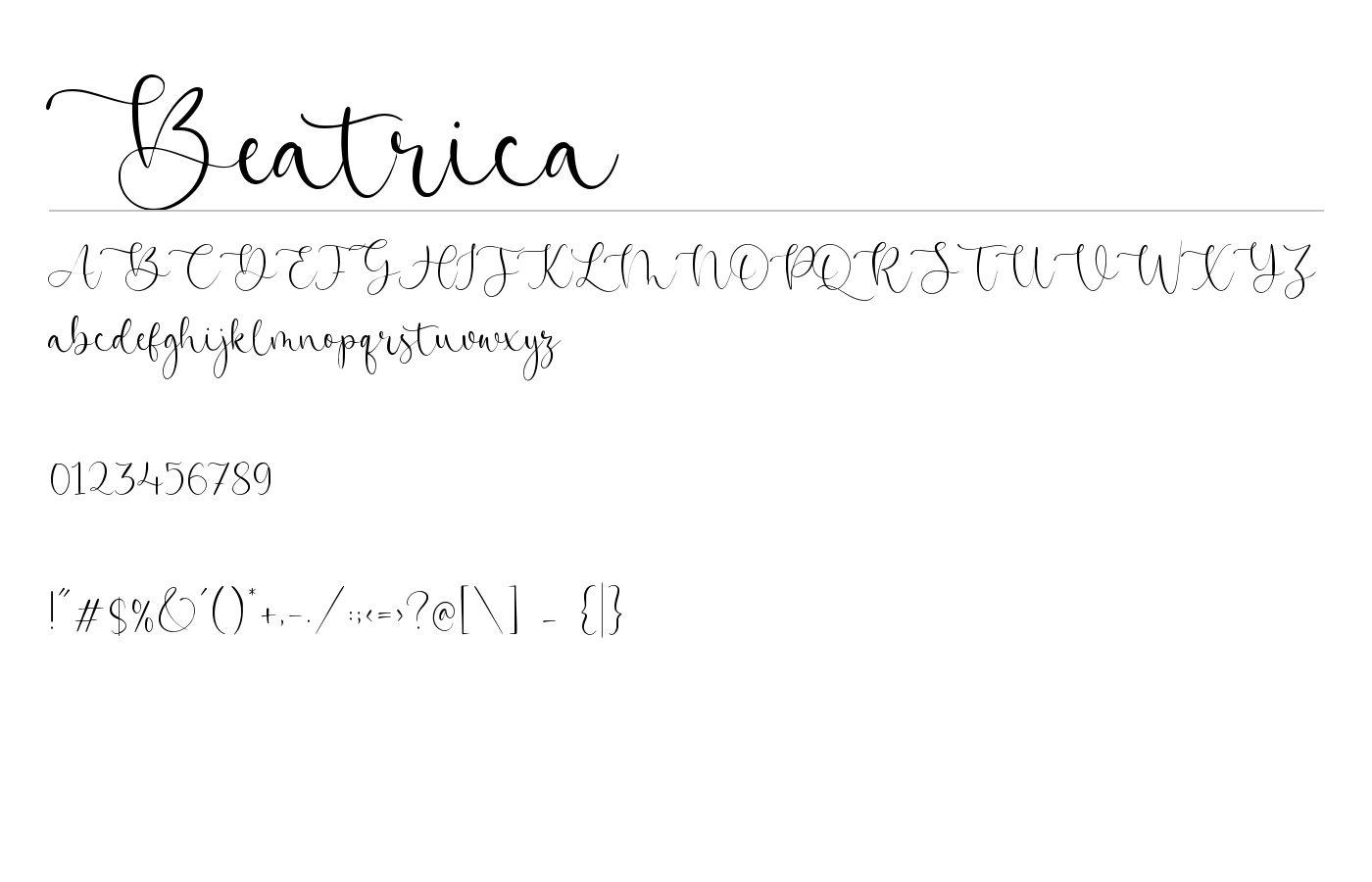
Beatrica is an elegant, delicate script font characterized by its thin, flowing strokes and refined, decorative loops, giving it a luxurious and feminine feel. Its high contrast and graceful curves make it perfect for wedding invitations, beauty branding, and sophisticated logo designs where a romantic, handcrafted touch is desired. This font works best in large sizes or headlines where its intricate details can shine without sacrificing readability.
Beatrica Font
About Beatrica Font